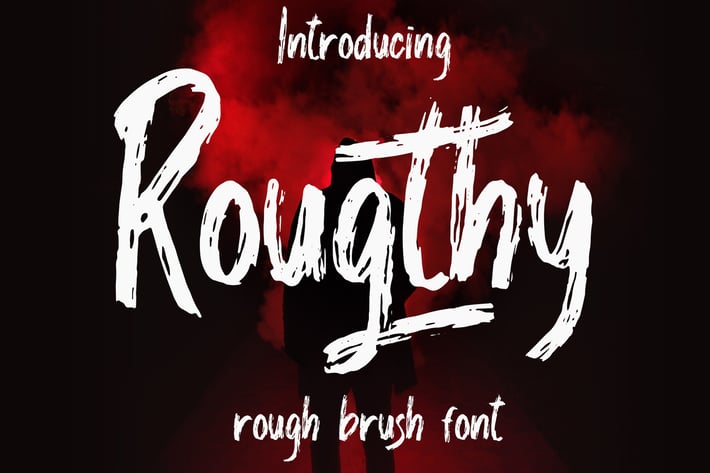
Rougthy Brush Font
Rougthy was inspired by the typography of natural brushes. Written in quick motion using a brush pen, it's a bit dry and looks realistic. It is suitable for commercial needs or magazine fashion design, offer logos, product packaging, headlines, posters, film,merchandise, social media & other greeting cards.
Ligature\
Stylistic Alternate\
Basic Latin Language Support (AÀÁÂÃÄÅCÇDÐEÈÉÊËIÌÍÎÏÑOØÒÓÔÕÖUÙÜÚÛWYÝŸÆß )